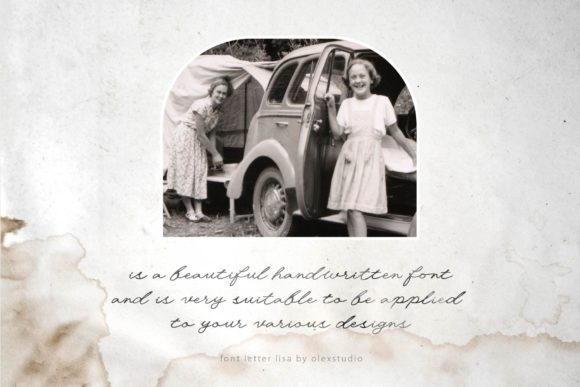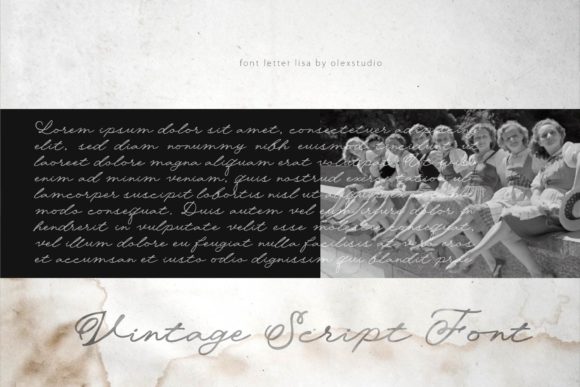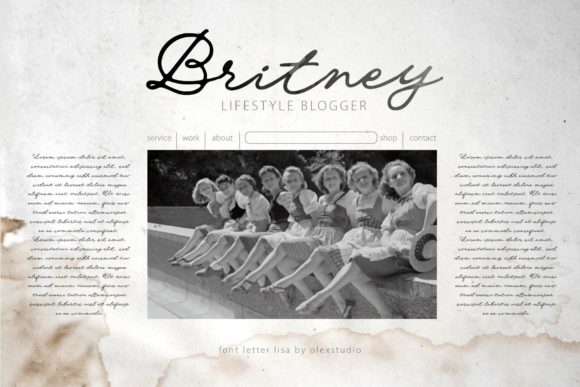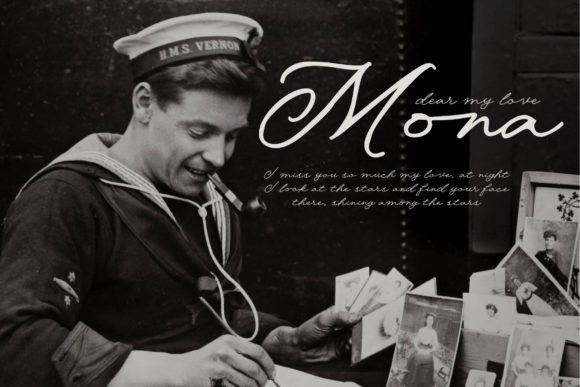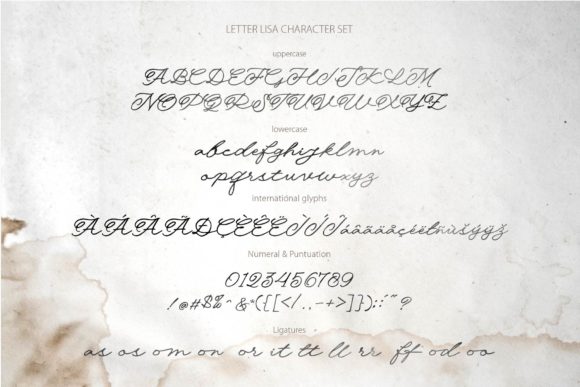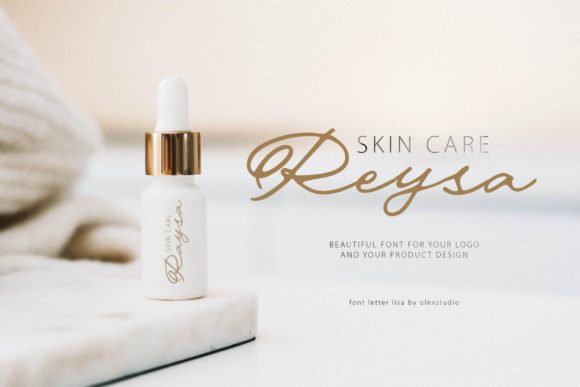
Introduction to Letter Lisa Font
As designers, we’ve all been there – staring at a blank page, struggling to bring our creative vision to life. The blank slate can be daunting, but with the right design resource, it can also be an exciting opportunity to showcase our style. For me, it’s the moment when a project starts to take shape, and the perfect font is the key to unlocking its full potential. That’s where Letter Lisa Font comes in – a chic, refined script font that adds a touch of sophistication and elegance to any creative project.
With its stylish alternates and ligatures, Letter Lisa Font is a high-quality design resource that’s sure to elevate your work. Whether you’re looking for a free download or a premium option, this font is a valuable addition to any designer’s toolkit. And with its transparent background, it’s perfect for overlaying on images or using as a standalone element.
Key Features of Letter Lisa Font
- High-quality, hand-drawn design ideal for creative projects and personal use.
- Features a large character set, making it suitable for various languages and applications.
- Designed with a unique, cursive style that adds a touch of elegance to any creative project.
Honest Review: Letter Lisa Font
One of the things that stood out to me about the Letter Lisa Font is its high quality design. The font is clean, modern, and easy to read. The designer has done a great job of creating a font that’s both visually appealing and functional.
- ✨ Easy to read and use
- ✨ High quality design
- ⚠️ Limited font styles and variations
- ⚠️ Not suitable for large-scale or complex designs
Overall, I’m really impressed with the Letter Lisa Font. It’s a great resource for designers who are looking for a high-quality font that’s easy to use. While it may not be perfect, it’s definitely worth checking out for your next creative project.
Common Use Cases for Letter Lisa Font
Letter Lisa Font is a versatile font that can be used in a variety of creative projects, including logos, business cards, and social media graphics. Its high-quality design and transparent background make it an ideal choice for designers who want to create professional-looking designs quickly and easily.